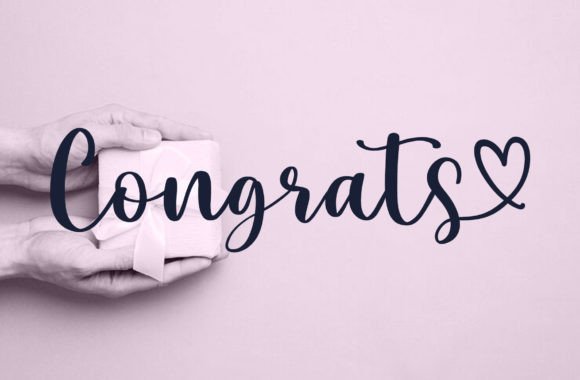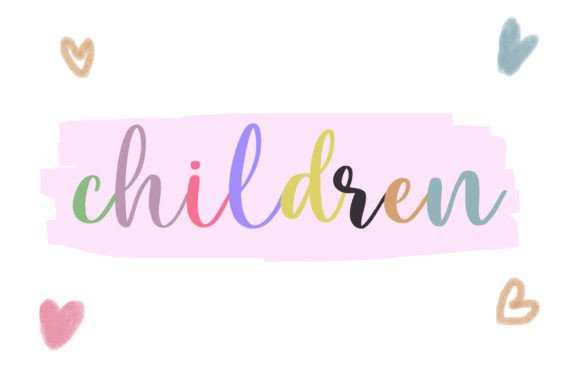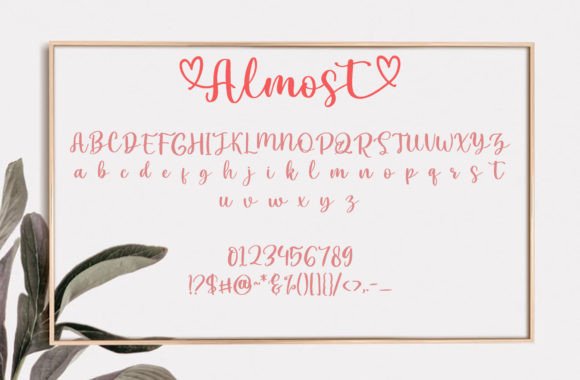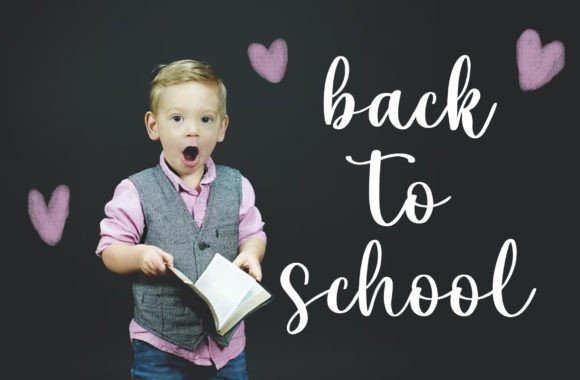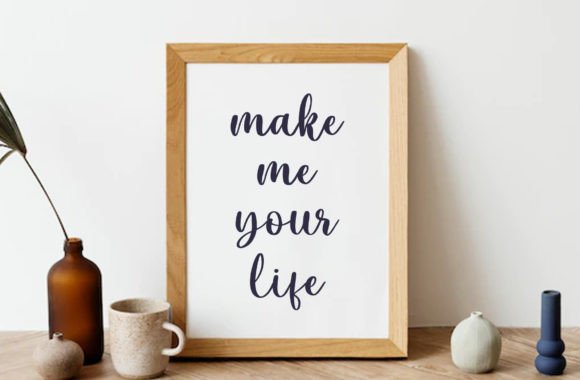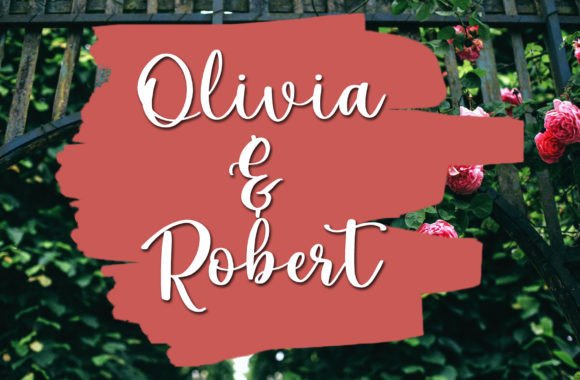
Almost Font
About Almost Font
“Almost” is more than just a font; it’s a sweet and cute handwritten typeface that adds a touch of charm to your creative projects. Its versatility makes it well-suited for a variety of applications, from creating gorgeous wedding invitations to crafting beautiful stationary art and eye-catching social media posts.
The sweet and cute handwritten style of “Almost” is designed to evoke a warm and friendly feel. Each character is crafted with a playful touch, making it perfect for projects that call for a lighthearted and endearing aesthetic. Whether you’re designing for weddings or social media, “Almost” brings a delightful flair to your text.
The versatility of “Almost” is one of its standout features. This font seamlessly adapts to different design contexts, allowing you to create a wide range of visually appealing content. Whether you’re working on elegant wedding invitations or aiming to capture attention on social media, “Almost” is a reliable choice.
The PUA encoding feature of “Almost” adds an extra layer of convenience. This encoding allows you to access all the glyphs and swashes with ease, giving you the freedom to customize and personalize your designs effortlessly. Whether you want to add unique flourishes or experiment with different letterforms, “Almost” empowers you to infuse your creativity into your projects.
In summary, “Almost” is not just a font; it’s a design element that brings sweetness and cuteness to your creative endeavors. Embrace its playful handwritten style for wedding invitations, stationary art, social media posts, and more. Let “Almost” be the font that adds a touch of charm and versatility to your designs, ensuring that they captivate and delight your audience.